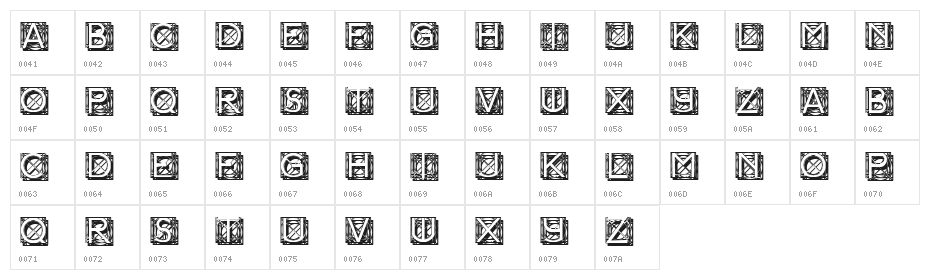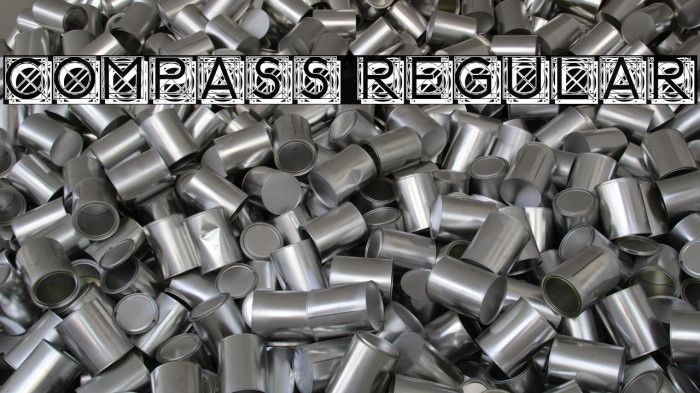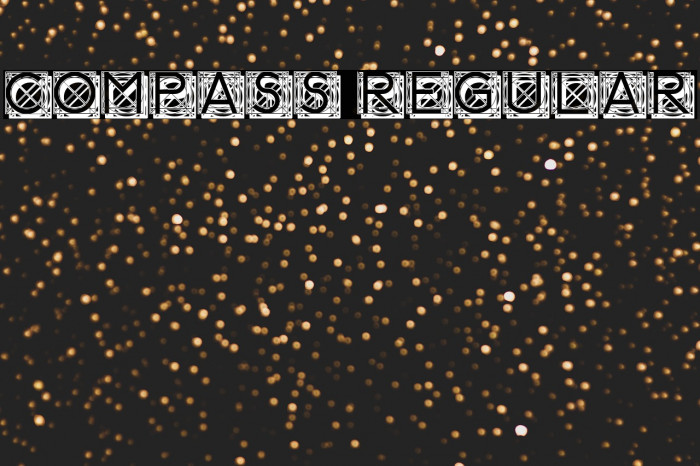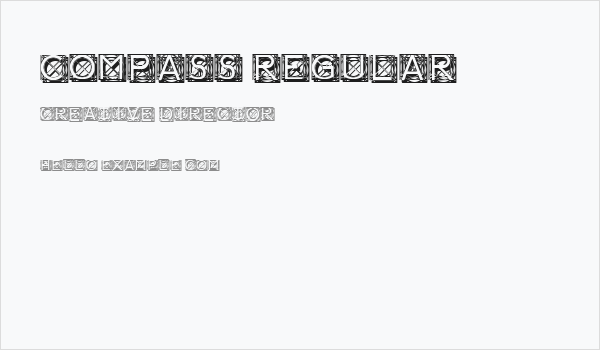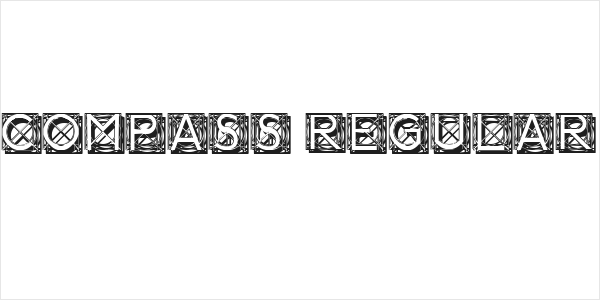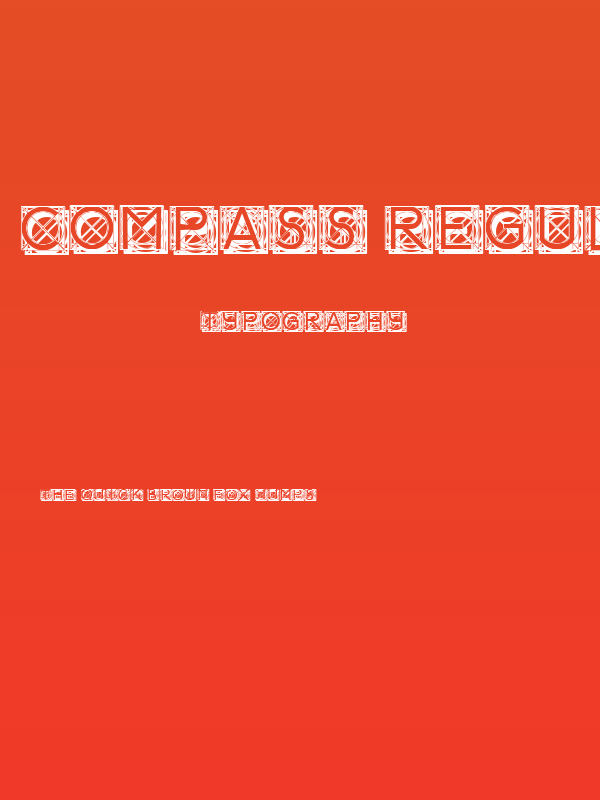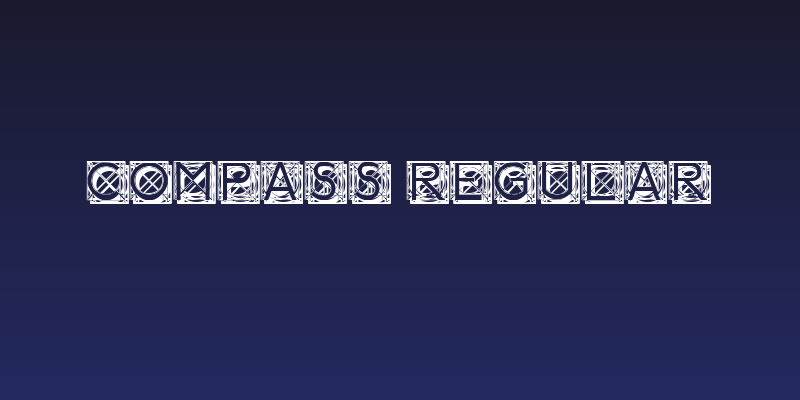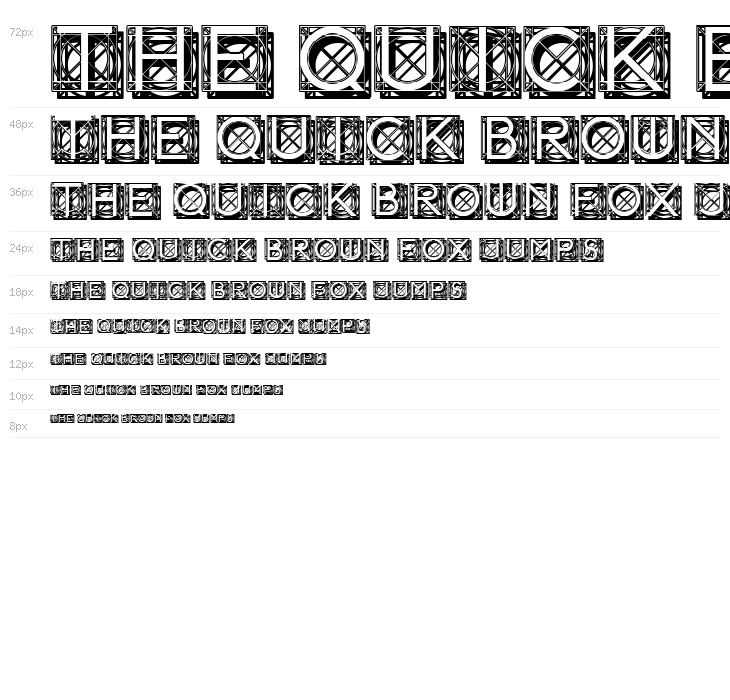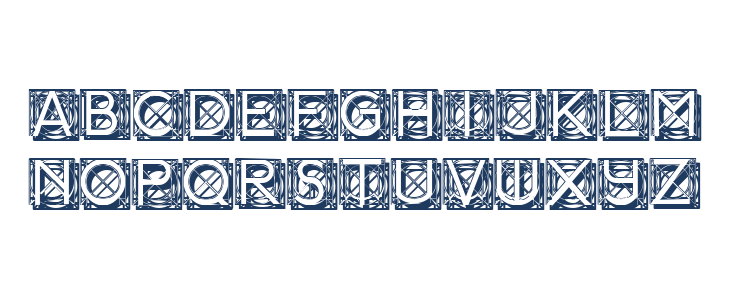
Compass Regular Font
| Vorgeschlagene Projekte | Ideal for artistic posters, album covers, branding for luxury products, or any project needing a bold, decorative touch. |